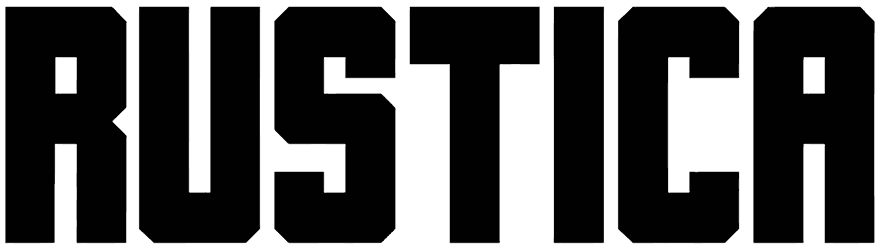
Rustica Font
The sans-serif font, Rustica, stands out for its unique and striking design. In spite of the absence of lowercase letters, it continues to be an extremely popular option among designers. It’s great as a block font because it’s simple and strong in any setting.